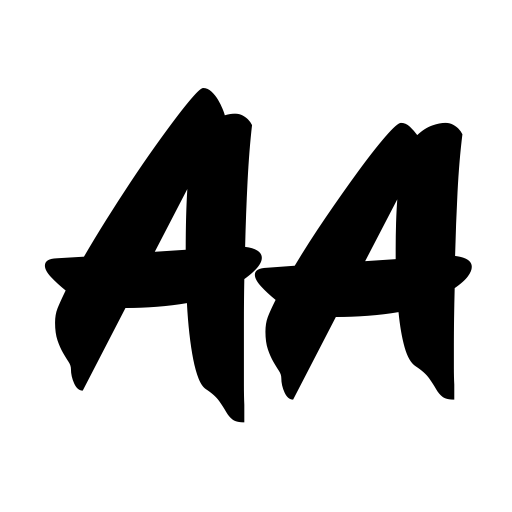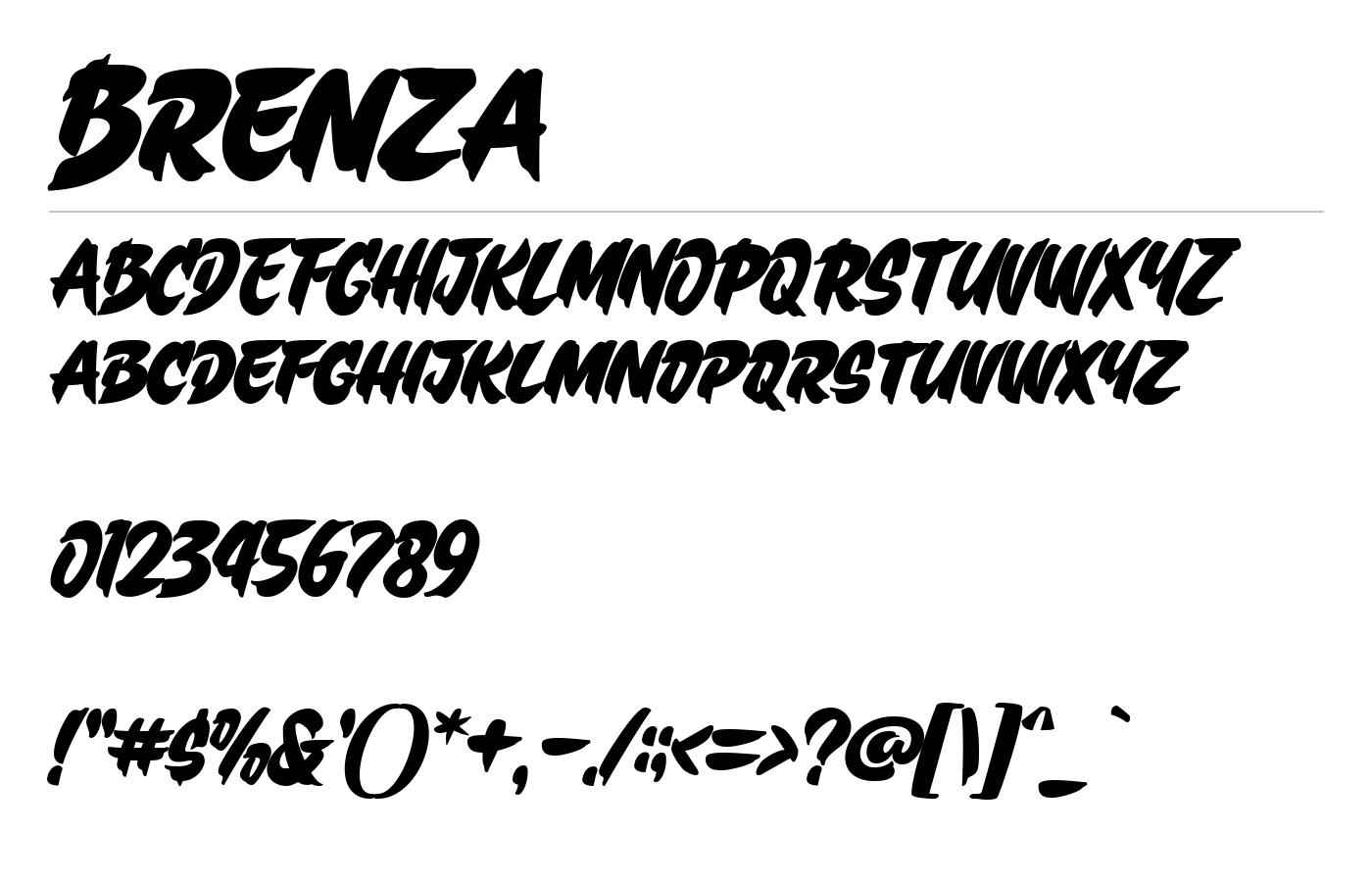
Brenza is a bold, energetic script font with a dynamic, brush-painted style that conveys a sense of movement and creativity. Its thick, slightly condensed letterforms with sharp, irregular edges create a casual yet impactful look, perfect for designs that seek to stand out with personality and flair. This font works well for eye-catching headlines, logos, posters, and branding that aims to express boldness and artistic vibrancy.
Brenza Font
About Brenza Font
| Font family | Brenza Font |